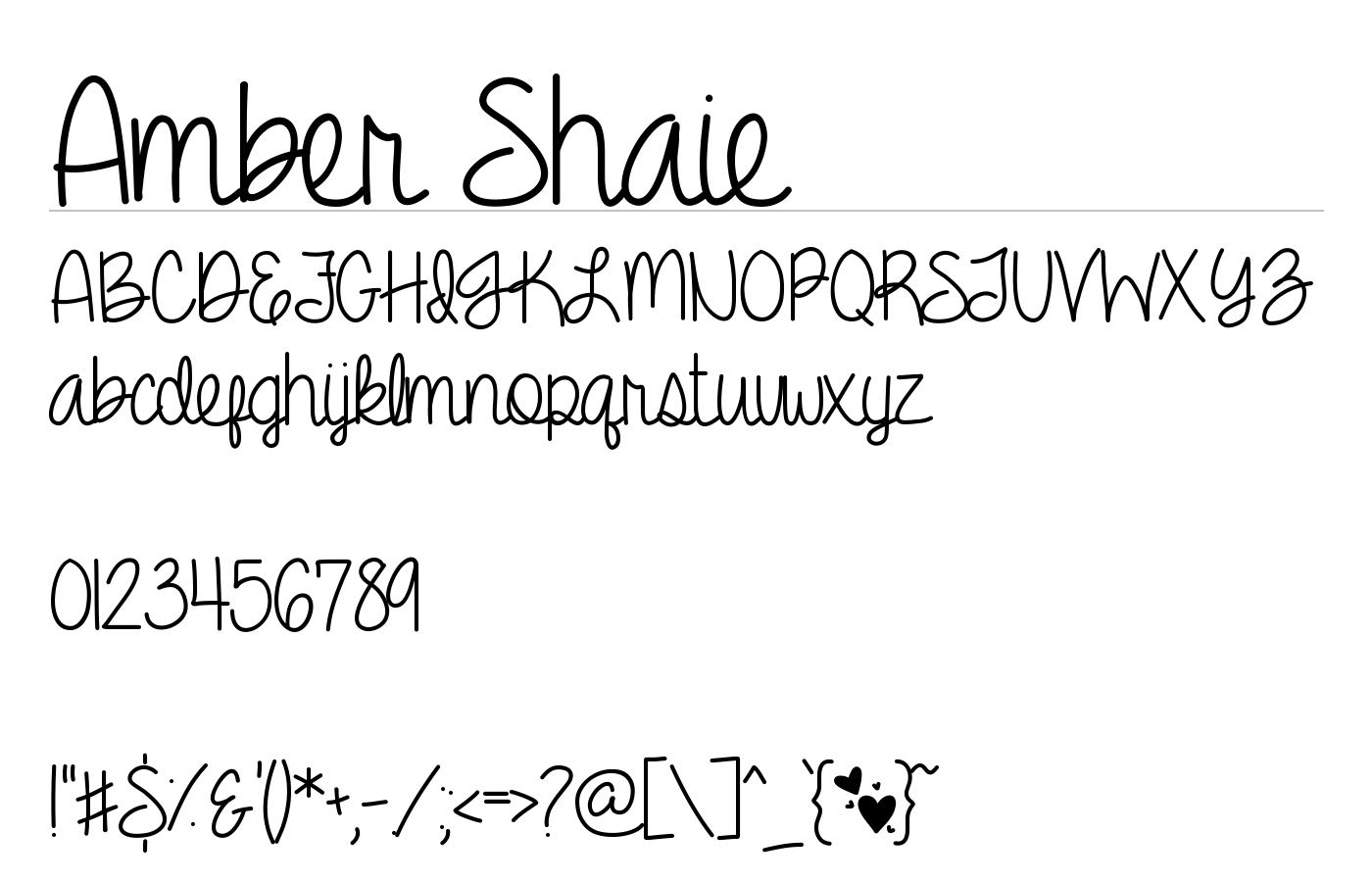
Amber Shaie is a playful, handwritten sans serif font with slender, tall letterforms and a casual, friendly feel. Its light weight and loose spacing give it an airy, approachable style that works well for informal designs like personal branding, invitations, and creative projects. The font’s quirky character shapes and simple lines create a charming, whimsical vibe suited for youthful and artistic expressions.
Amber Shaie Font
About Amber Shaie Font